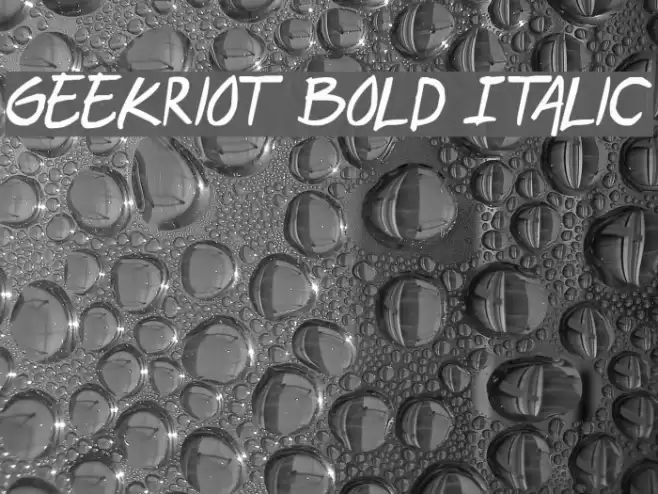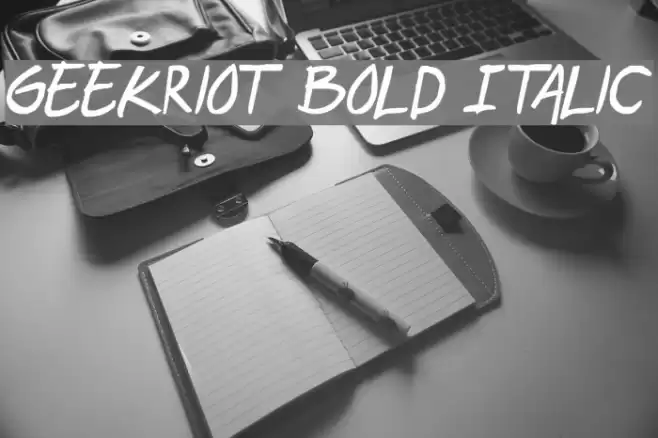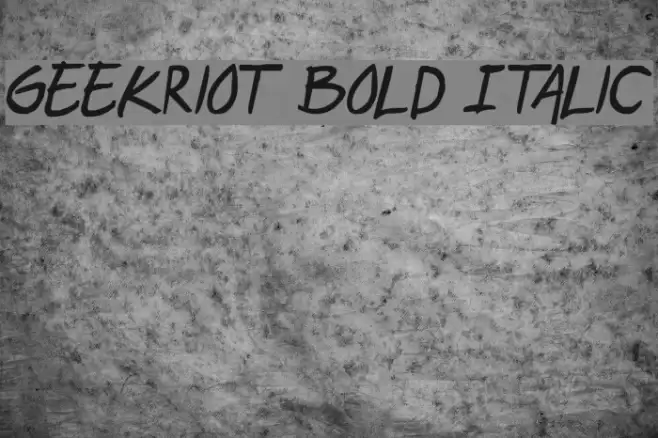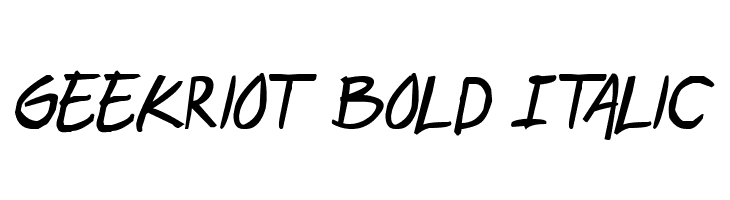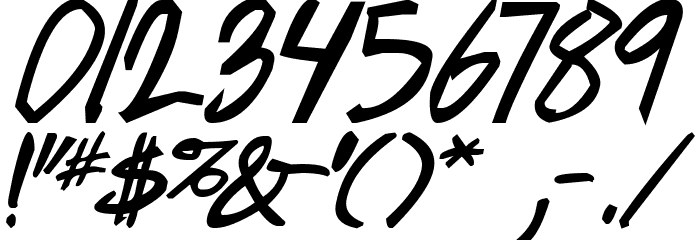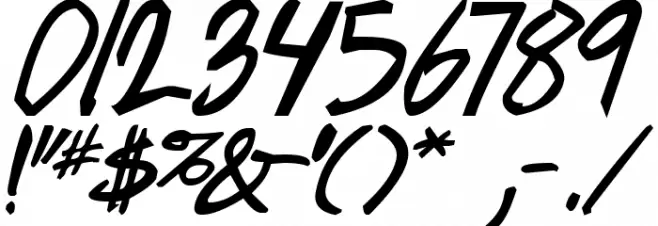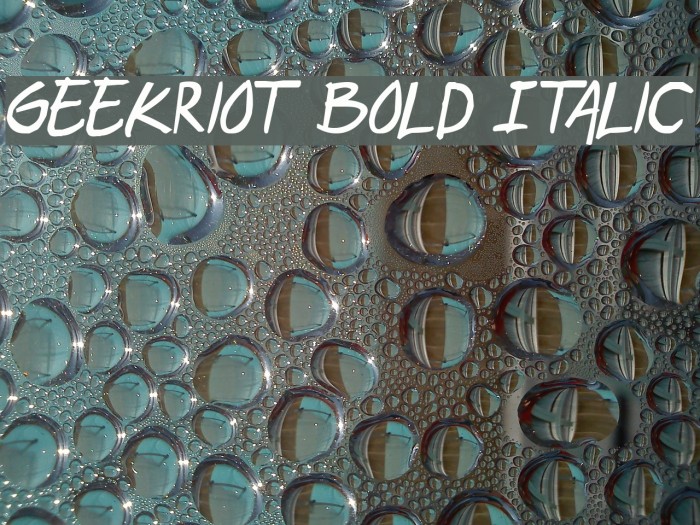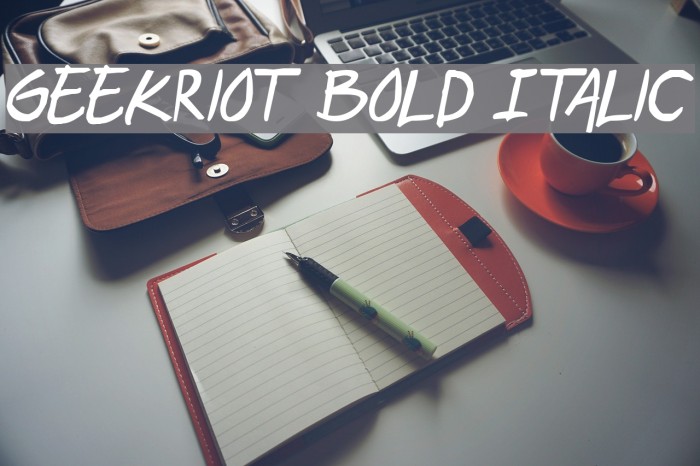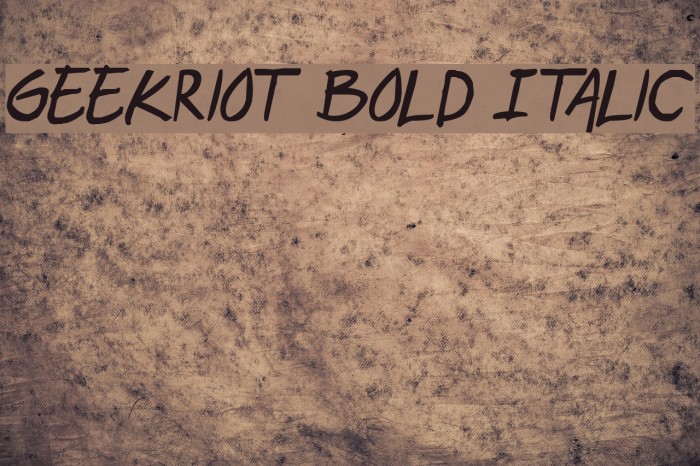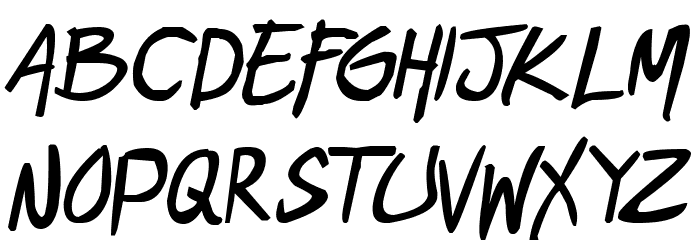
geekriot Bold Italic Font
geekriot Bold Italic Description
This font exudes a dynamic and energetic style with its bold and italicized form. The characters are crafted with a handwritten flair, giving them a casual yet assertive appearance. The strokes are thick and consistent, providing a strong visual impact. The slanted orientation adds a sense of movement and urgency, making it ideal for projects that require a lively and informal touch. The uppercase and lowercase letters maintain a cohesive look, while the numerals and special characters complement the overall design. This font is perfect for creative projects that aim to capture attention and convey a sense of spontaneity.
A bold, italic, handwritten font with dynamic and energetic style from Uncategorized fonts.
- Proposed Projects: Ideal for posters, branding, social media graphics, and event invitations.